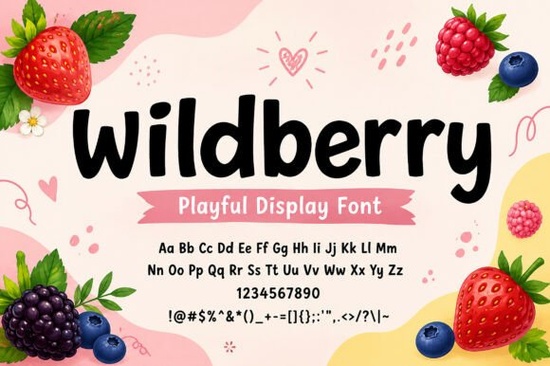
If you're looking for a playful display font that works well across kids' products, packaging, and social media graphics, Wildberry is worth a closer look. This bold, rounded typeface has a friendly, hand-lettered feel that fits right into cheerful design projects. Whether you sell on Etsy, design for clients, or create content for your own brand, a font like this can save you time while keeping your work looking polished and fun. You can find it listed as a playful display font option that covers a wide range of creative uses.
What Kind of Design Projects Work Best With Wildberry?
Wildberry's rounded edges and bold weight make it a natural fit for projects that need to feel approachable and warm. Think about designs where a serious serif or a clean sans-serif would feel too stiff. That's where a font like this steps in.
Here are some common projects where Wildberry works well:
- Children's branding logos, shop names, and packaging for kid-focused businesses
- T-shirt and apparel design especially for print-on-demand sellers targeting family or kids' niches
- Food and beverage labels jams, juices, snack brands, and bakery packaging
- Social media graphics Instagram posts, Pinterest pins, and story templates
- Stickers and Cricut projects planner stickers, laptop decals, and party favors
- Greeting cards and invitations birthday cards, baby shower invites, and thank-you notes
- Book covers and posters children's books, event flyers, and wall art prints
The font's cheerful personality also makes it a strong choice for quotes and merchandise design. If you sell mugs, tote bags, or wall art with short phrases or sayings, Wildberry's bold letterforms keep the text readable while adding visual charm.
Why Do Designers Like Rounded, Bold Display Fonts?
Rounded fonts tend to feel more human and approachable than sharp or geometric typefaces. That's because our brains associate rounded shapes with softness and friendliness. For designers working on products meant for kids, families, or casual audiences, this matters a lot.
Wildberry takes that rounded, friendly style and makes it bold enough to stand out at a glance. It's not trying to be subtle and that's the point. A display font should grab attention quickly, whether it's on a shelf, a screen, or a sticker sheet.
If you've used fonts like Noby before, you'll notice a similar energy in Wildberry both lean into that bold, fun aesthetic that works so well for branding and packaging.
What Features Are Included in the Wildberry Font?
- Uppercase and lowercase letters giving you flexibility for headlines and body text
- Numbers and punctuation so you can create complete designs without switching fonts
- Multilingual support useful if your audience includes non-English speakers
How Does Wildberry Compare to Other Display Fonts?
There's no shortage of playful display fonts out there, so it's fair to ask what makes this one different. Wildberry sits in a sweet spot between fun and readable. Some decorative fonts sacrifice legibility for personality, but this one keeps its letterforms clear even at smaller sizes.
Compared to something like a grunge-style display typeface, Wildberry is much softer and more kid-friendly. And while fonts like a trendy display font for feminine branding lean into a specific aesthetic, Wildberry is more versatile it works across different product categories without feeling locked into one look.
If your projects sometimes call for something with more edge, a typeface like a retro grunge display font might pair well alongside Wildberry in your font library. Having a mix of playful and bold options means you're ready for different client needs or product styles.
Is Wildberry a Good Fit for Print-on-Demand Sellers?
Short answer: yes, especially if your store focuses on kids' products, family-themed items, or colorful lifestyle goods. POD sellers often need fonts that look good on mockups, transfer well to physical products, and don't require extra design tweaks to look complete.
Wildberry checks those boxes. Its bold weight means it holds up on fabric printing, and its clean edges reproduce well on stickers, mugs, and paper goods. If you're building a catalog of designs for platforms like Merch by Amazon, Redbubble, or Etsy, having a reliable playful font in your toolkit makes the workflow smoother.
Tip: Try combining Wildberry with a clean, neutral font for longer text blocks. The contrast between a playful heading font and a straightforward body font keeps designs looking professional while still feeling fun.